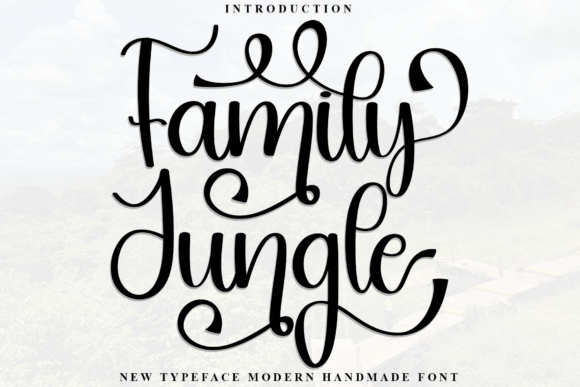
Introducing Family Jungle Font: The Perfect Casual Script Font for Your Creative Projects
Are you looking for a font that can add a touch of warmth and friendliness to your designs? Look no further than Family Jungle Font, a casual script font that exudes a relaxed and approachable feel. With its rounded, playful strokes, Family Jungle is perfect for personal projects, invitations, and social media graphics.
The Characteristics of Family Jungle Font
Family Jungle Font is a charming, hand-drawn script font that boasts a unique and whimsical aesthetic. Its rounded strokes and playful curves give it a friendly and approachable feel, making it perfect for designs that require a personal touch. The font’s casual and relaxed vibe makes it ideal for a wide range of creative projects, from social media graphics to invitations and personal projects.
What Makes Family Jungle Font Stand Out?
So, what sets Family Jungle Font apart from other script fonts on the market? Here are a few key features that make it a standout:
- Rounded and playful strokes: Family Jungle Font features rounded, playful strokes that give it a relaxed and approachable feel.
- Hand-drawn aesthetic: The font’s hand-drawn aesthetic adds a delightful, whimsical touch to any design.
- Warm and friendly feel: Family Jungle Font exudes warmth and friendliness, making it perfect for designs that require a personal touch.
Uses for Family Jungle Font
Family Jungle Font is a versatile font that can be used for a wide range of creative projects. Here are a few ideas to get you started:
- Personal projects: Family Jungle Font is perfect for personal projects, such as photo albums, scrapbooking, and other craft projects.
- Invitations: The font’s casual and relaxed vibe makes it ideal for invitations, such as birthday parties, baby showers, and other celebrations.
- Social media graphics: Family Jungle Font is a great choice for social media graphics, such as Instagram posts, Facebook updates, and Twitter headers.
- Branding and packaging: The font’s unique and whimsical aesthetic makes it a great choice for branding and packaging projects.
Tips for Using Family Jungle Font
Here are a few tips for using Family Jungle Font in your designs:
- Pair it with bold fonts: Family Jungle Font pairs well with bold fonts, such as sans-serif fonts or serif fonts.
- Use it in combination with images: The font’s playful aesthetic makes it a great choice for use in combination with images.
- Experiment with colors: Family Jungle Font looks great in a variety of colors, from bright and bold to soft and pastel.
The Benefits of Using Family Jungle Font
Here are a few benefits of using Family Jungle Font in your designs:
- Unique and eye-catching: Family Jungle Font is a unique and eye-catching font that can help your designs stand out.
- Easy to read: The font’s clear and simple aesthetic makes it easy to read, even at small sizes.
- Versatile: Family Jungle Font is a versatile font that can be used for a wide range of creative projects.
Family Jungle Font is a charming, hand-drawn script font that exudes warmth and friendliness. Its rounded, playful strokes give it a relaxed and approachable feel, making it perfect for personal projects, invitations, and social media graphics. With its unique and whimsical aesthetic, Family Jungle Font is a great choice for designers looking to add a touch of personality to their designs.